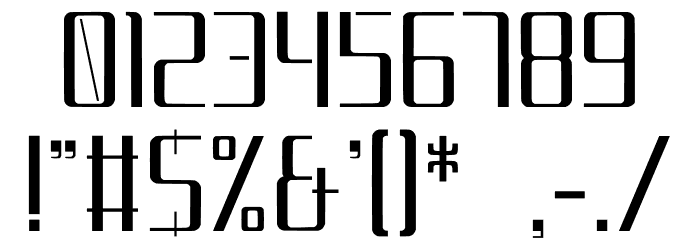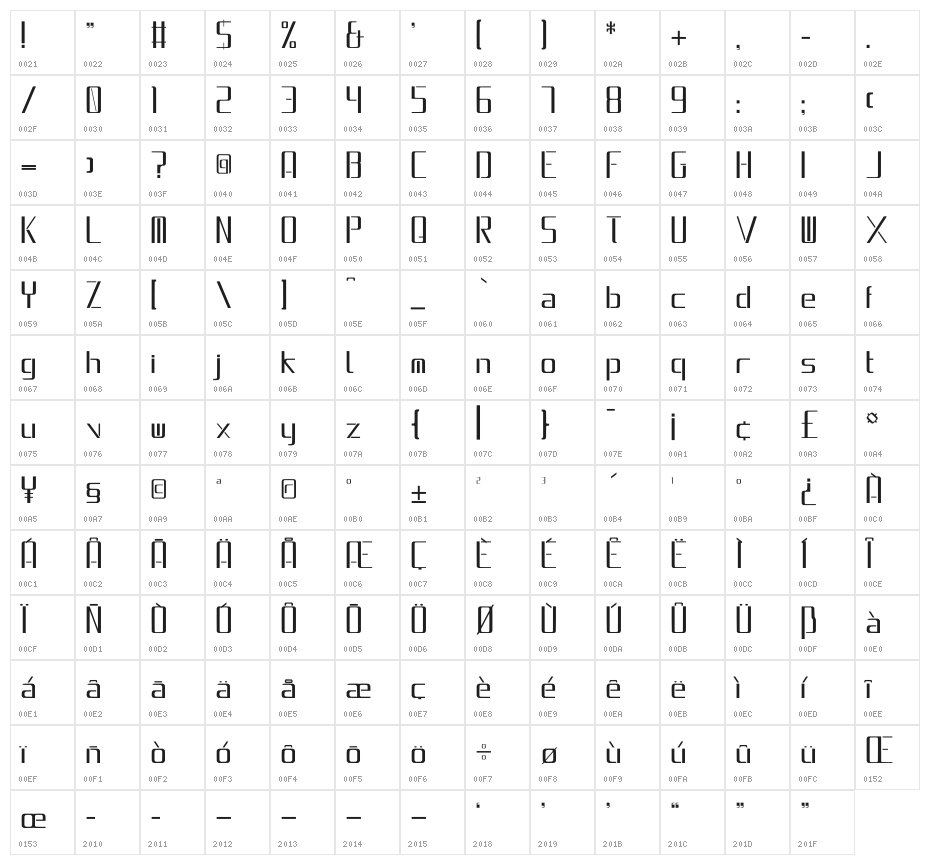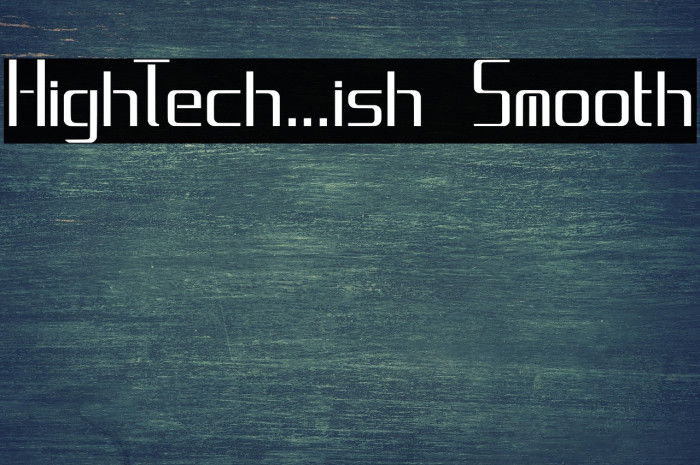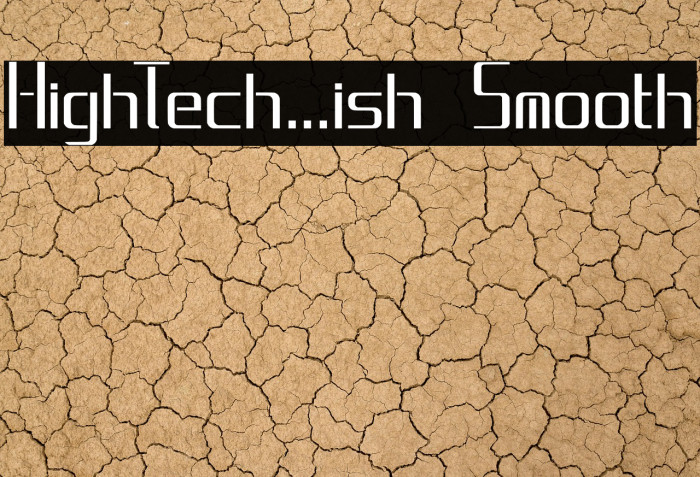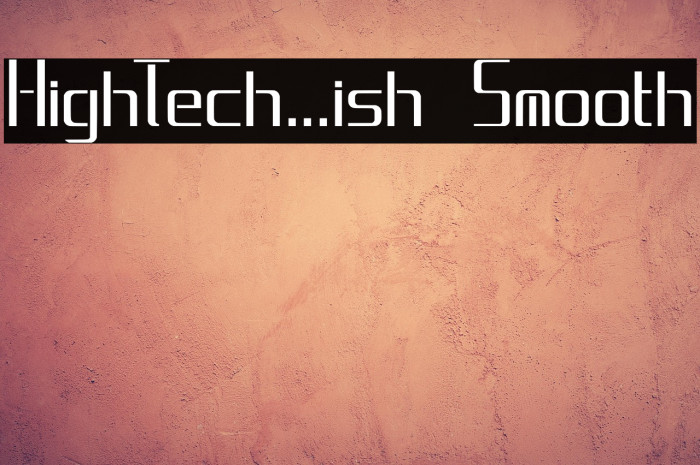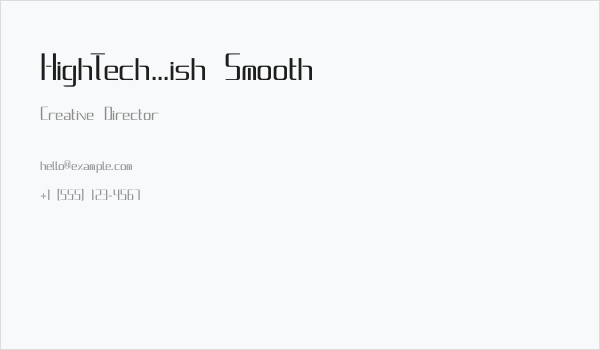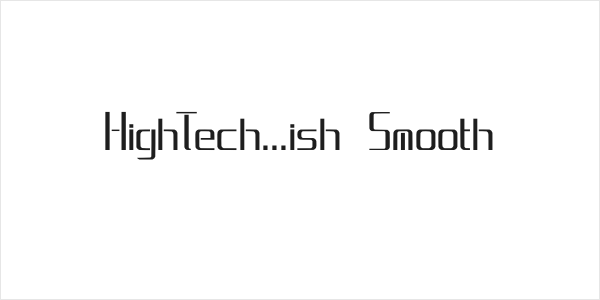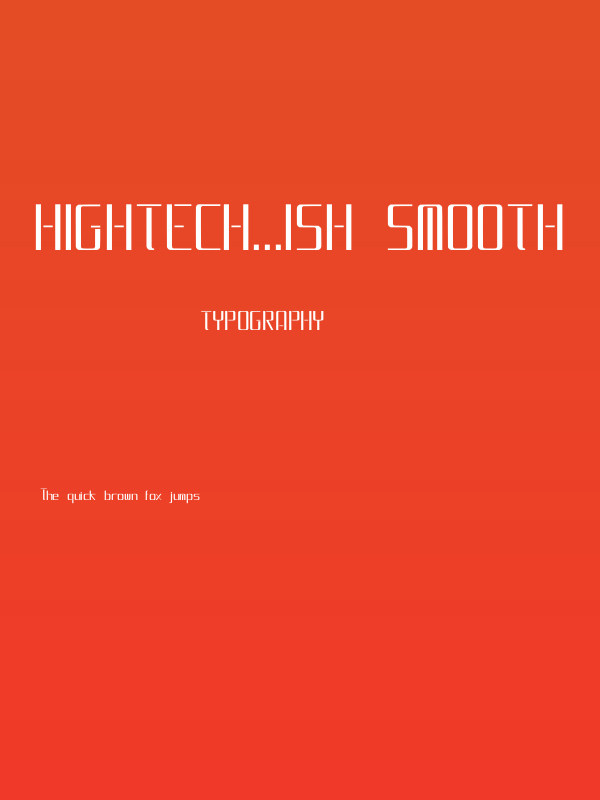
HighTech...ish Smooth Font
HighTech...ish Smooth Description
This font embodies a futuristic and sleek design, characterized by its geometric and angular letterforms. The uppercase and lowercase letters share a consistent style, with sharp edges and a modern aesthetic. The numerals are distinct and maintain the same angular theme, making them easily distinguishable. Special characters are designed to complement the overall style, adding to the font's cohesive look. The font's design is minimalistic yet striking, making it suitable for projects that require a contemporary and tech-savvy appearance.
| Proposed Projects | Ideal for technology branding, sci-fi movie posters, modern web design, and innovative product packaging. |